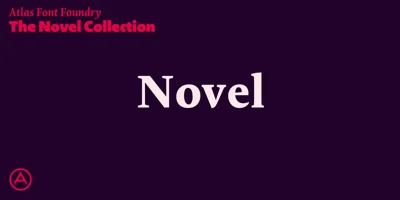
Novel Pro Font
If you're seeking a high-quality serif typeface optimized for readability and versatility, Novel Pro Font is a superb choice. Designed for professional publishing and editorial use, Novel Pro is a classic text family that offers elegance, clarity, and exceptional legibility across print and digital formats.
Novel Pro features well-balanced proportions, moderate contrast, and refined serifs that make it highly readable in both small body text and large headlines. Its carefully crafted letterforms give it a timeless, literary feel—ideal for book interiors, academic journals, newspapers, and sophisticated branding projects.
The font is part of a broader type system, often used in multilingual publishing thanks to its extended character sets and advanced typographic features. It’s perfect for anyone working on editorial layouts, long-form reading experiences, or any design requiring a professional and refined tone.